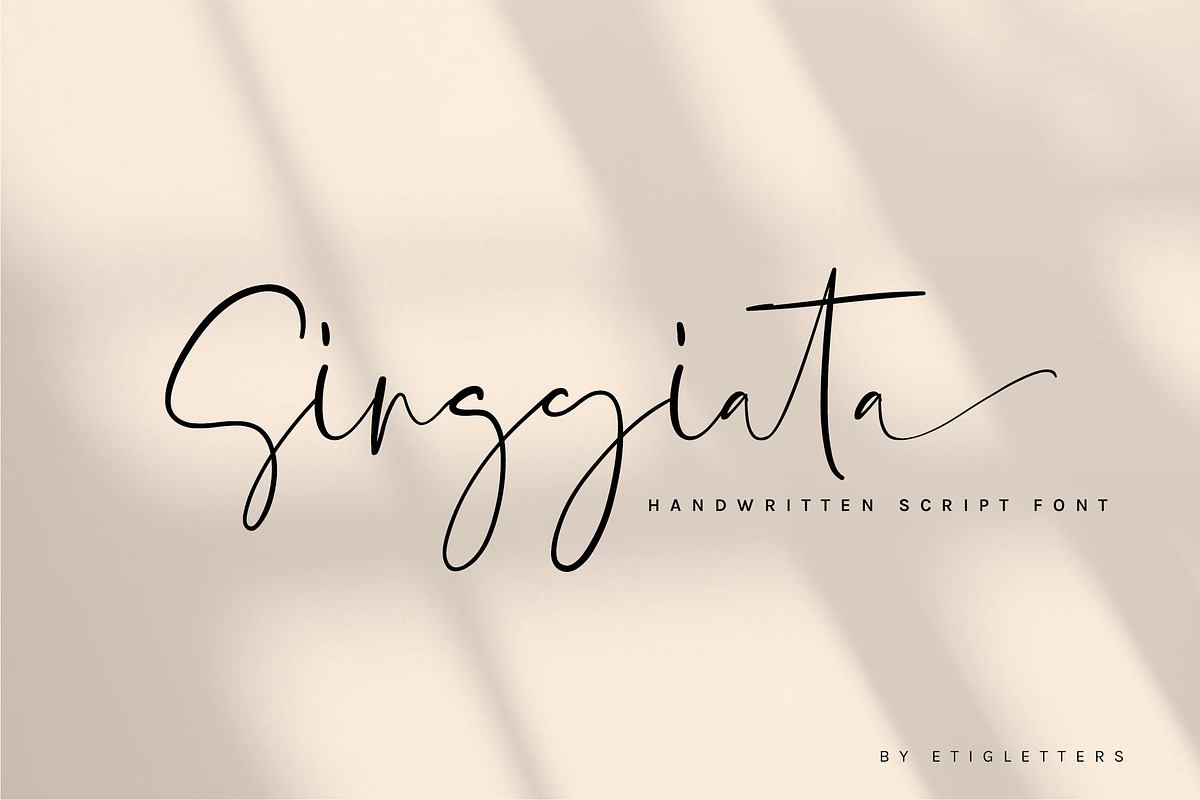
Singgiata Handwritten Font Free Download
Please note that you must purchase this font for commercial use. You can download Singgiata Handwritten Font for free, strictly for personal testing purposes only. Singgiata is a stylish and elegant handwritten font that captures the natural flow of handwriting. With its smooth, flowing strokes and unique character, Singgiata Font Free Download is perfect for a variety of creative projects, including logos, invitations, social media graphics, branding, and more.
The font's natural, handwritten charm adds a personal touch to your designs, making it ideal for projects that require a casual yet sophisticated feel. It includes uppercase and lowercase letters, numerals, punctuation, and multilingual support, offering versatility for a wide range of creative applications.
Whether you're working on a custom logo, designing an invitation, or creating content for social media, Singgiata brings a handwritten, artistic flair to your typography.